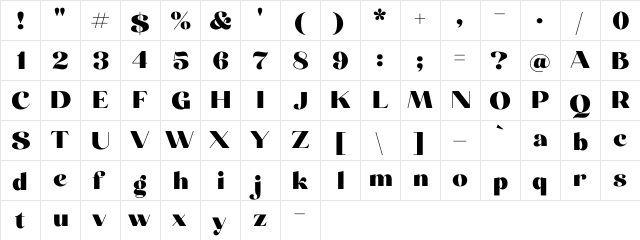
Carneys Gallery Demo Version Regular Font Preview
Carneys Gallery Demo Version Regular
Design Context for Carneys Gallery Demo Version Typeface
Carneys Gallery Demo Version takes a measured approach to typography — its balanced proportions and neutral character make it a reliable workhorse for both digital and print work.